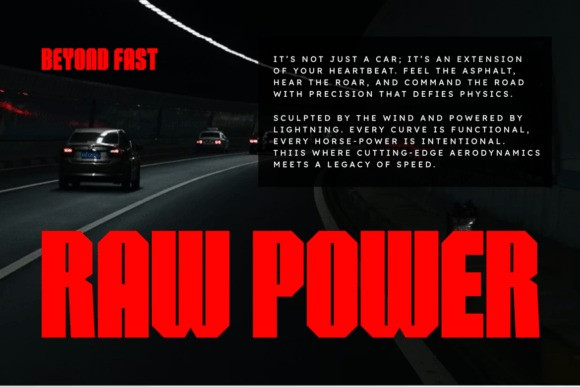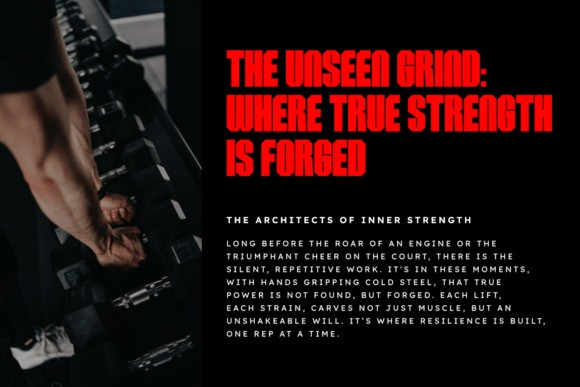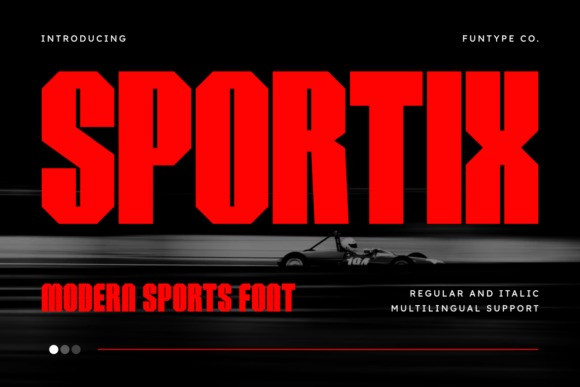
Sportix Font
Sportix Font is a bold and block-style sports font designed for impactful typography. With its thick structure and aggressive geometric cuts, this font is perfect for strong headlines, modern posters, album covers, sports graphics, branding, and high-impact advertising. Its clean and confident design gives your visuals a striking and professional look.